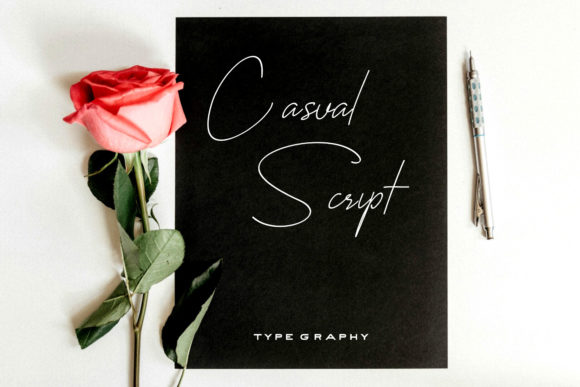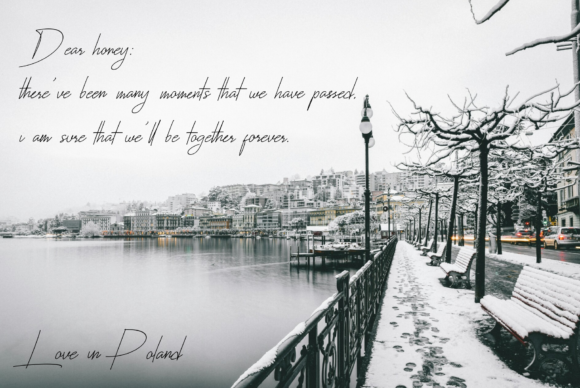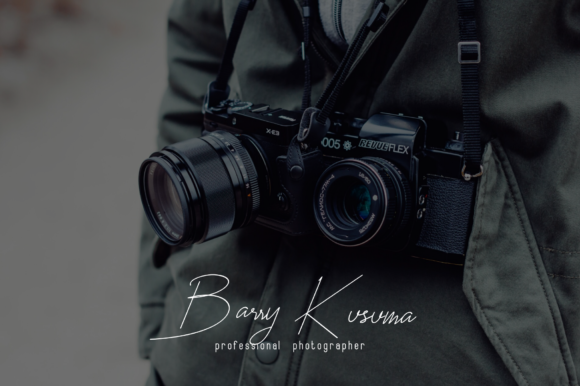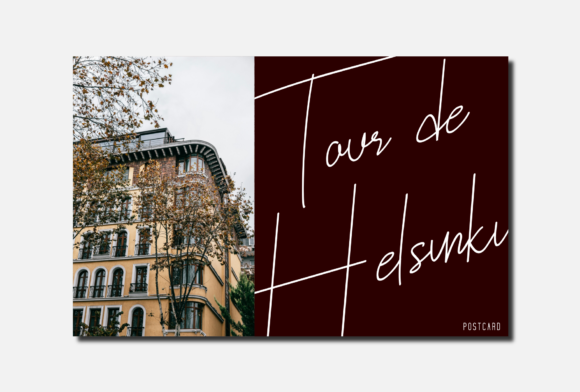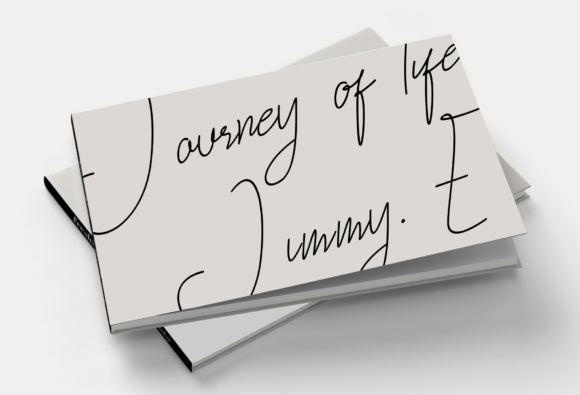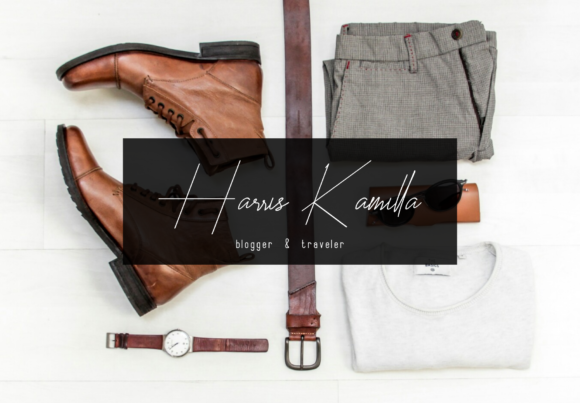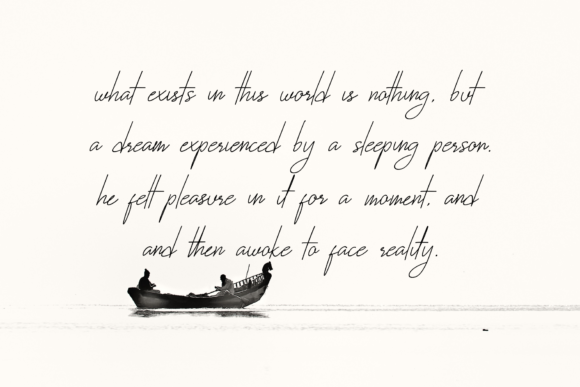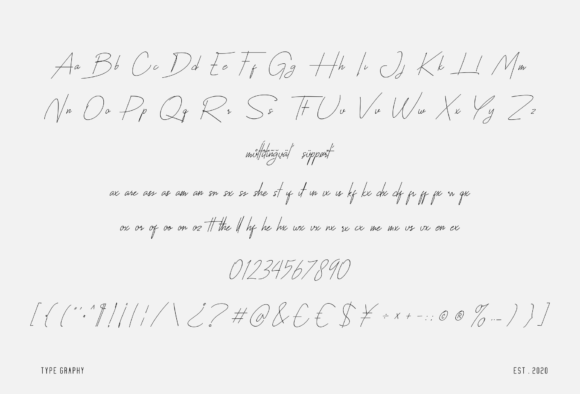
Casual Script Font
About Casual Script Font
Casual Script is a delicate and thin lettered handwritten font. This versatile script font has a wide spectrum of applications ranging from greeting cards to headlines and is guaranteed to add a romantic feel to your next project.